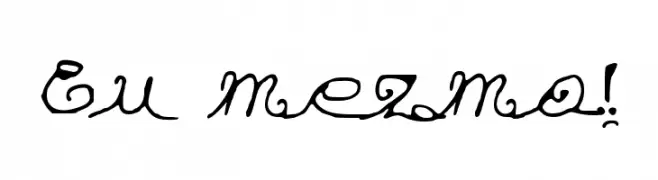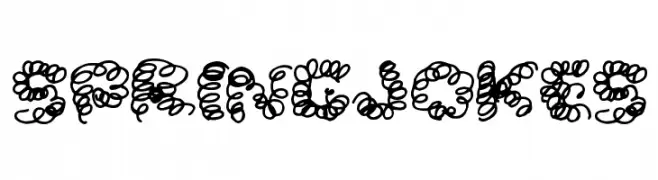
A playful, curly font with whimsical and festive letterforms.
A playful, whimsical font with curly, hand-drawn letterforms.
A decorative font with curly uppercase letters and clean lowercase characters.
A whimsical, curly font with a playful, hand-drawn style.
A whimsical and playful font with curly, looped strokes and decorative swirls.
A whimsical, decorative font with curly serifs and a playful, hand-drawn style.
A bold, playful font with curly, decorative elements.
A playful, curly font with a whimsical, hand-drawn style.
A whimsical and decorative font with playful, curly letterforms.
A playful, curly font with a spring-like design, perfect for creative projects.